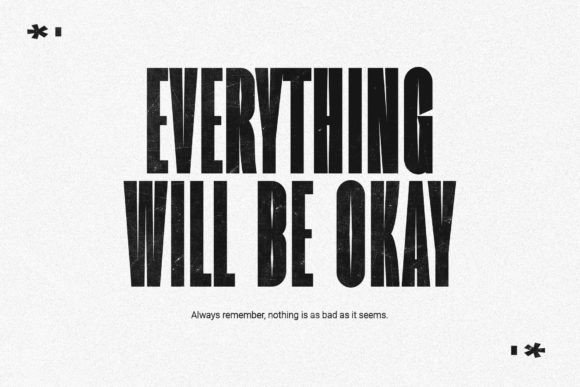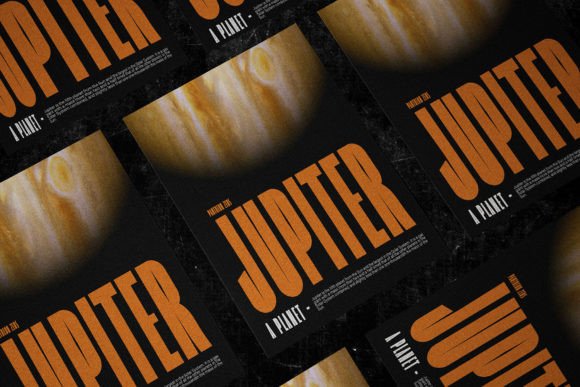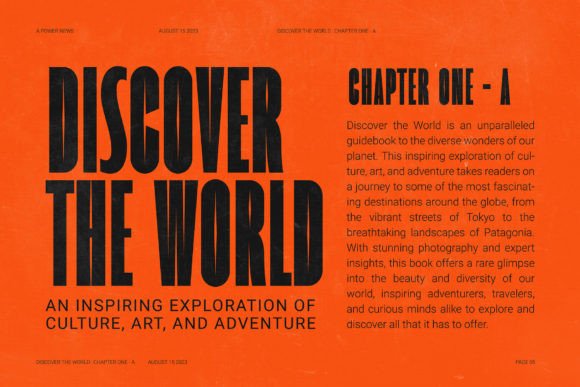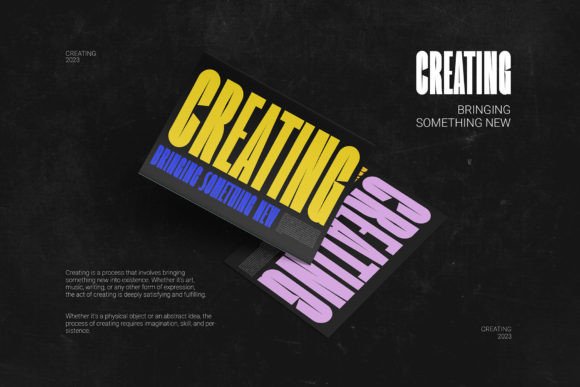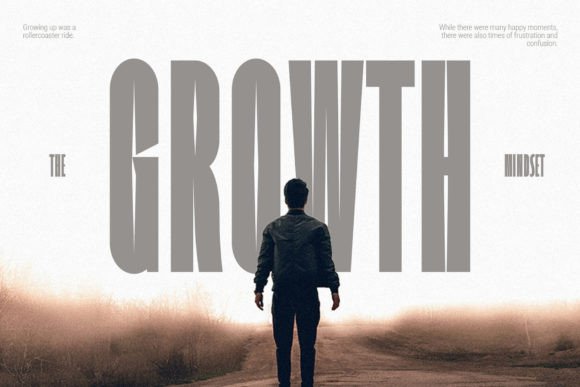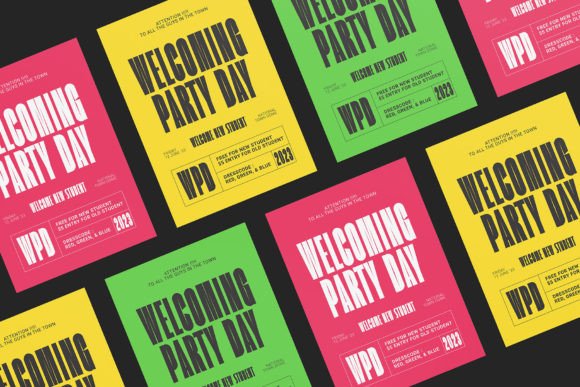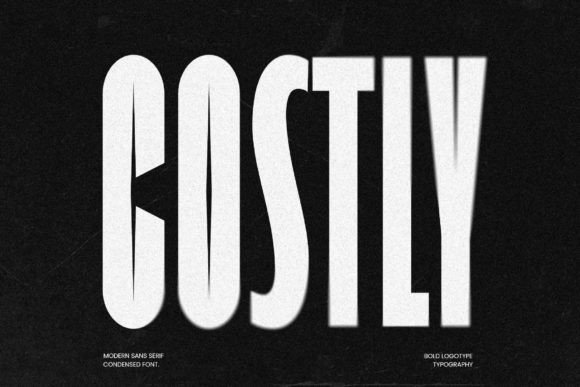
Introducing Costly Font: The Ultimate Sans-Serif for Creative Designs
Are you tired of using the same old fonts in your designs? Look no further than Costly, a contemporary and eccentric sans-serif font that’s sure to add a playful twist to your projects. With its unique letterforms and charming irregularities, Costly is perfect for designers and crafters looking to give their work a touch of whimsy and character.
The Unique Features of Costly Font
Costly font boasts clean lines and bold strokes, making it highly legible and perfect for use in a variety of design applications. However, what sets it apart from traditional fonts is its quirky details and charming irregularities. Each letterform has been carefully crafted to add a touch of personality to your text, making it perfect for designs that require a bit of flair.
The Benefits of Using Costly Font
There are many benefits to using Costly font in your designs. For one, its unique and playful style is sure to grab the attention of your audience. Whether you’re designing for digital or print, Costly adds a delightful and modern flair to your text while maintaining readability and style. Additionally, its clean lines and bold strokes make it easy to read, even at smaller sizes.
Costly font is perfect for designers and crafters looking to add a bit of personality to their work. Whether you’re creating a logo, brochure, or social media graphic, Costly is sure to make your design stand out from the crowd. Its quirky details and charming irregularities make it perfect for use in a variety of design applications, from branding and advertising to packaging and more.
Tips for Using Costly Font Effectively
To get the most out of Costly font, here are a few tips to keep in mind:
- Use it sparingly: While Costly font is perfect for adding a touch of personality to your designs, it’s best used sparingly. Try using it as a headline font or to add emphasis to certain words or phrases.
- Pair it with a neutral font: To create visual interest, try pairing Costly font with a neutral font. This will help to create contrast and make your design more visually appealing.
- Experiment with colors: Costly font looks great in a variety of colors, so don’t be afraid to experiment. Try using it in bold, bright colors to really make your design pop.
What Makes Costly Font Stand Out
So what makes Costly font stand out from other sans-serif fonts? Here are a few things:
- Unique letterforms: Each letterform in Costly font has been carefully crafted to add a touch of personality to your text.
- Charming irregularities: The irregularities in Costly font add a touch of whimsy and character to your designs.
- Clean lines and bold strokes: The clean lines and bold strokes of Costly font make it highly legible, even at smaller sizes.
In conclusion, Costly font is a unique and playful sans-serif font that’s perfect for designers and crafters looking to add a bit of personality to their work. With its clean lines, bold strokes, and quirky details, Costly is sure to make your designs stand out from the crowd. Whether you’re designing for digital or print, Costly adds a delightful and modern flair to your text while maintaining readability and style. So why not give it a try and see the difference it can make in your designs?